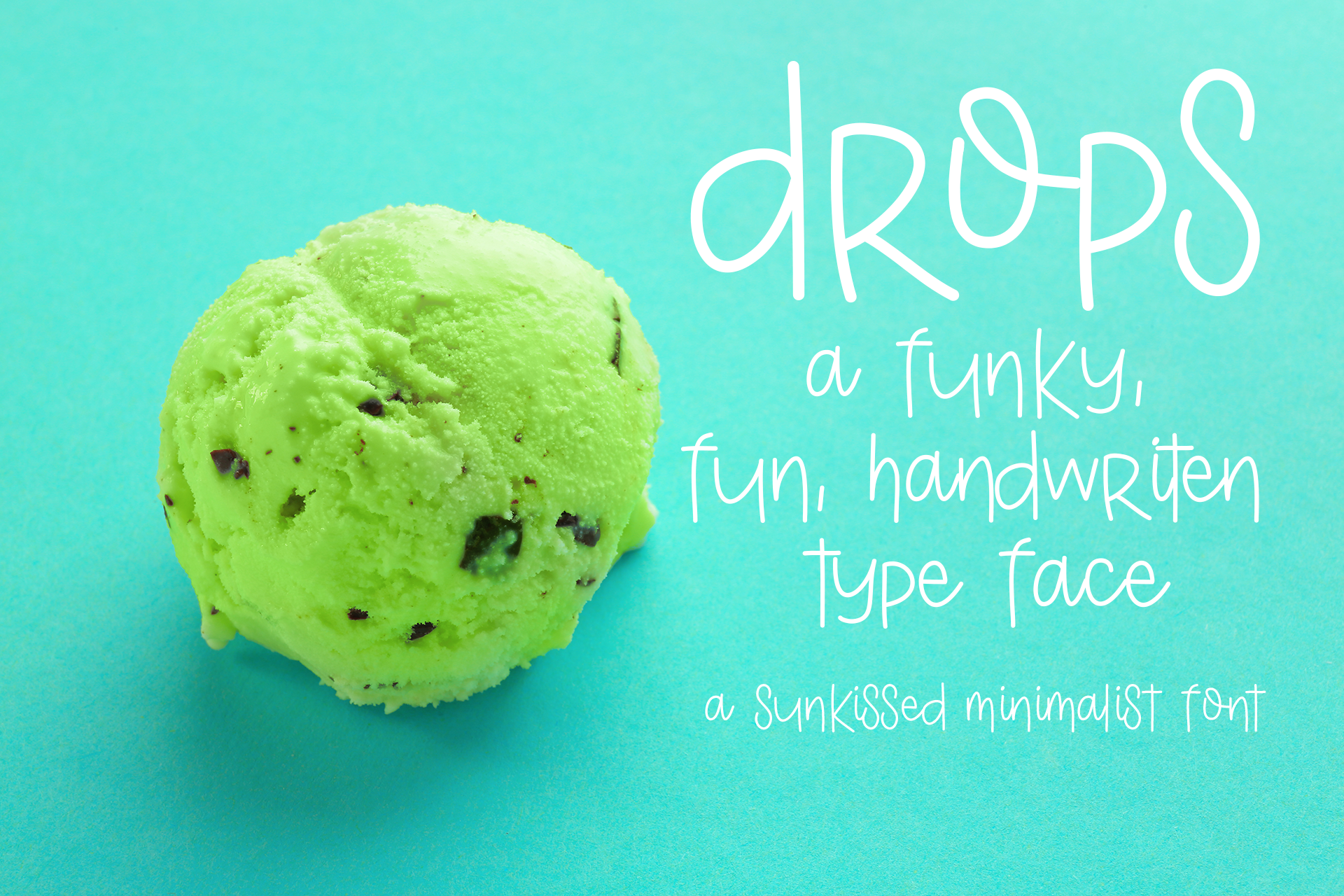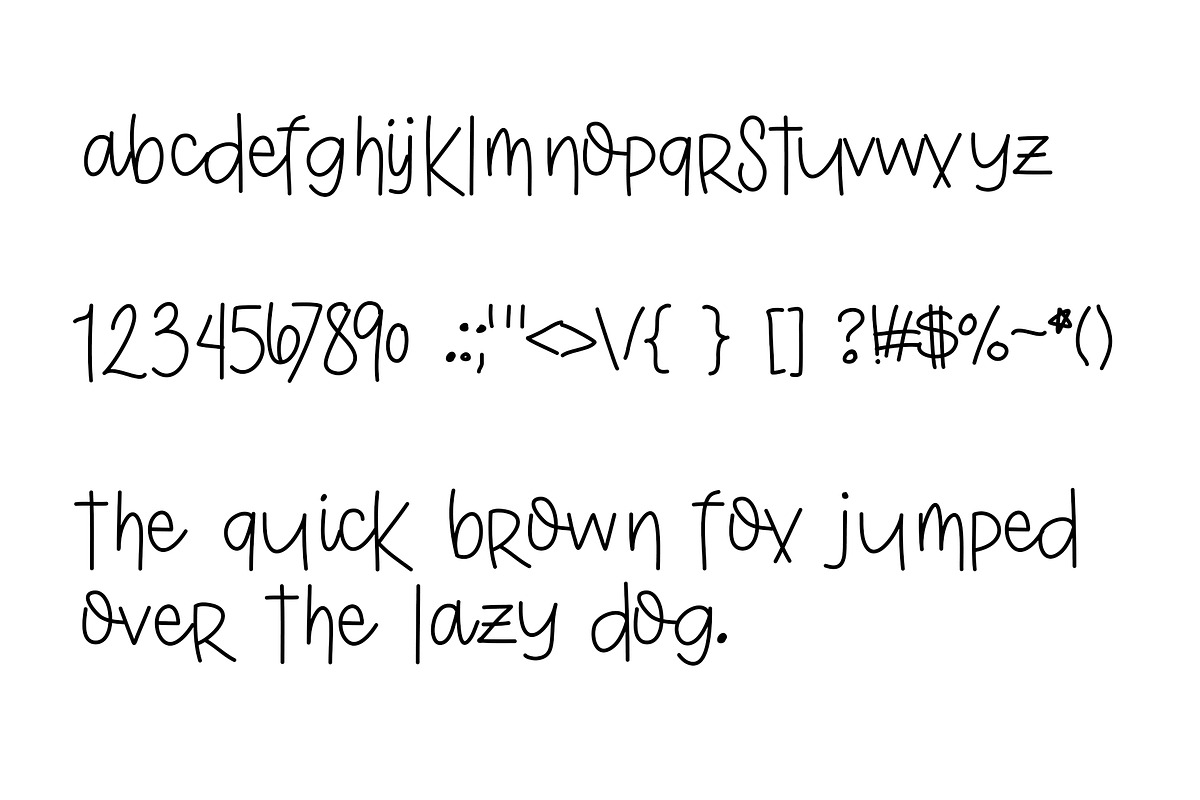
Drops | A handwritten, funky font
A funky hand-drawn handwriting font featuring a natural mix of script and print letters. Drops is a monoscript with a bouncy feel, perfect for logo creation, poster design, and many more uses. Drops can be used for personal or commercial projects, in logos, and on items for purchase with unlimited sales.